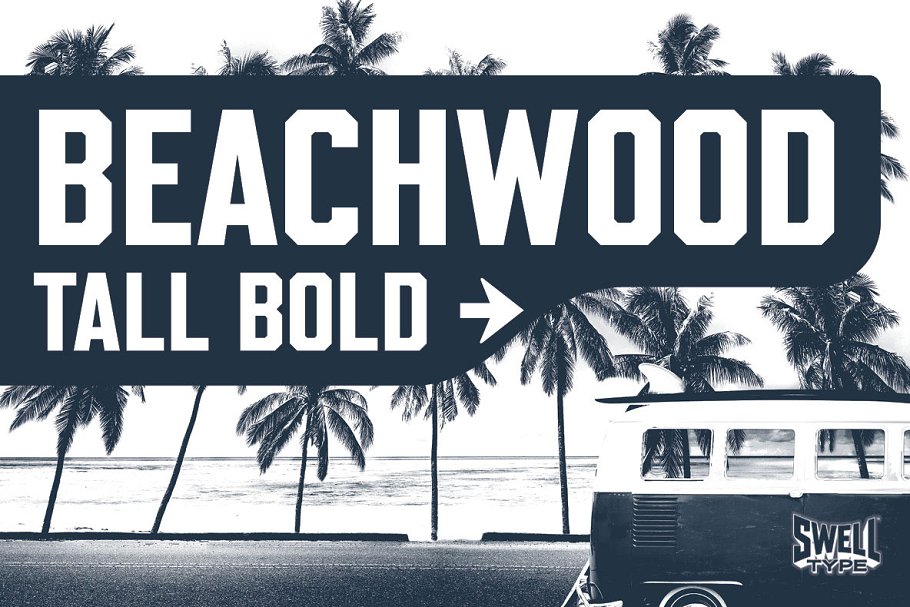
Looking for the best font for your baseball jersey? Look no further than Beachwood - Los Angeles sign font. Created by John Roshell, this font family captures the distinctive style of Los Angeles' vintage street signs with a new matching lowercase, making it a versatile choice for any project.
But Beachwood isn't just any font. In addition to numbers based on the street signs, it also includes four alternate number sets based on the jersey styles of Los Angeles' pro football teams, making it the perfect choice for sports-themed designs.
Named after Beachwood Drive in Los Angeles, which offers a perfect view of the famous HOLLYWOOD sign, Beachwood also features an exclusive HOLLYWOOD MODE. By choosing Opentype Stylistic Set 5, you can activate this mode and add a touch of Tinseltown glamour to your designs.
But that's not all. Beachwood also boasts an impressive 584 glyphs, supporting 223 languages in Western Europe, Central Europe, Vietnam, Oceania, and Cyrillics. Plus, it includes five styles of numbers, including Tabular Lining for screen display, as well as Ordinals, Fractions, and Arrows.
Whether you're designing a baseball jersey, a sports-themed poster, or just looking for a font that captures the essence of vintage Los Angeles, Beachwood is the perfect choice. So why settle for boring and generic fonts when you can add a touch of history and glamour to your designs with Beachwood - Los Angeles sign font?